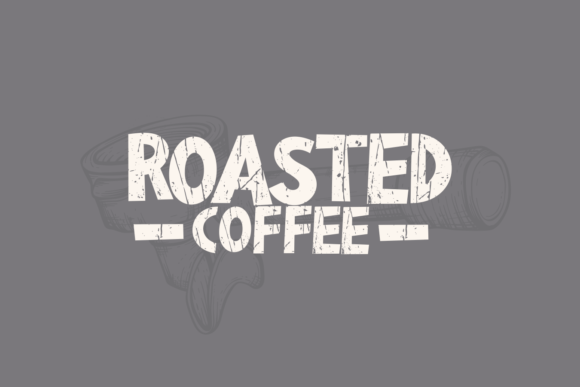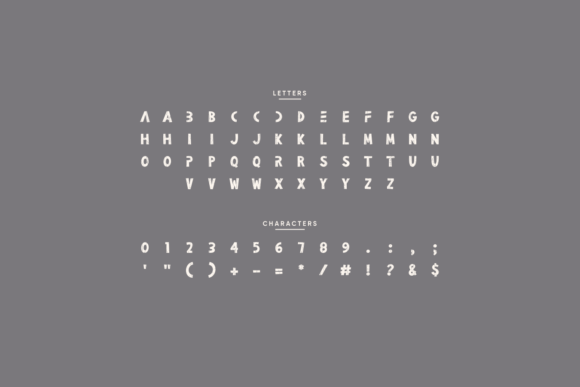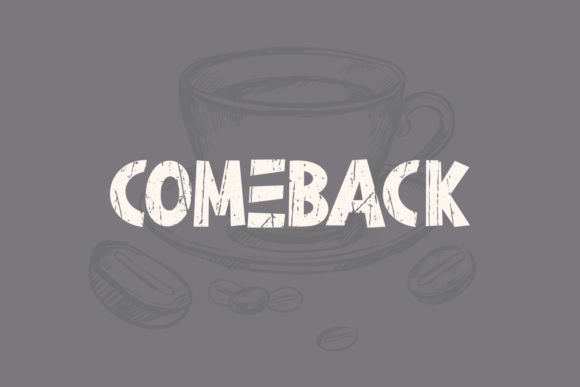
Introducing Fakeboe Font: A Dynamic and Playful Typeface for Modern Designs
In the world of typography, fonts play a crucial role in conveying the tone and personality of a design. For designers and crafters looking for a unique and eye-catching typeface, Fakeboe Font is an excellent choice. This all-caps font boasts a dynamic style with a hint of childish charm, making it perfect for a wide range of design applications.
What Makes Fakeboe Font Stand Out?
Fakeboe Font is characterized by its strong, bold style with a badass texture that gives it a modern and edgy feel. However, what sets it apart from other fonts is its unique lowercase style, which adds a touch of sweetness and cuteness to the overall design. This contrast between the bold and playful elements makes Fakeboe Font an intriguing and captivating choice for designers.
Key Features of Fakeboe Font
- Dynamic Style: Fakeboe Font features a dynamic style that is perfect for creating eye-catching titles, logos, and posters.
- Childish Accent: Each letter has a subtle childish accent, adding a playful touch to the font.
- Unique Lowercase Style: The lowercase style of Fakeboe Font is uniquely designed to look sweeter and cuter, making it ideal for designs that require a touch of whimsy.
- Strong and Bold: The font has a strong and bold texture, giving it a modern and edgy feel.
Uses of Fakeboe Font
Fakeboe Font is versatile and can be used for a variety of design applications, including:
- Title and Logo Design: The font’s dynamic style and bold texture make it perfect for creating striking titles and logos.
- Poster and Magazine Design: Fakeboe Font is ideal for designing eye-catching posters and magazine covers that require a modern and edgy feel.
- Food and Headline Design: The font’s playful and whimsical touch makes it suitable for designing food packaging and headlines that require a touch of personality.
Why Choose Fakeboe Font?
With so many fonts available, why choose Fakeboe Font? Here are a few reasons:
- Unique Style: Fakeboe Font offers a unique style that is hard to find in other fonts.
- Versatility: The font is versatile and can be used for a wide range of design applications.
- Modern and Edgy: Fakeboe Font has a modern and edgy feel that is perfect for designs that require a bold and striking look.
Fakeboe Font is an excellent choice for designers and crafters looking for a unique and eye-catching typeface. Its dynamic style, bold texture, and playful touch make it perfect for a wide range of design applications. Whether you’re designing a title, logo, poster, or food packaging, Fakeboe Font is sure to give your design a modern and edgy feel. So why not give it a try and see how it can elevate your designs?
In conclusion, Fakeboe Font is a must-have for any designer or crafter looking to add a touch of personality and whimsy to their designs. Its unique style, versatility, and modern feel make it an excellent addition to any design toolkit.